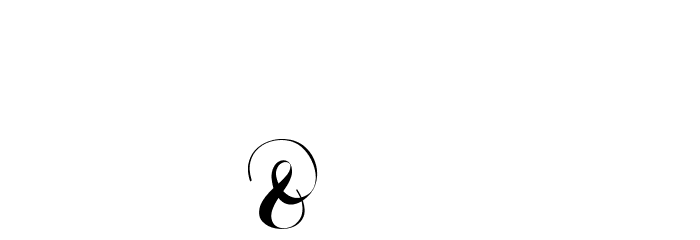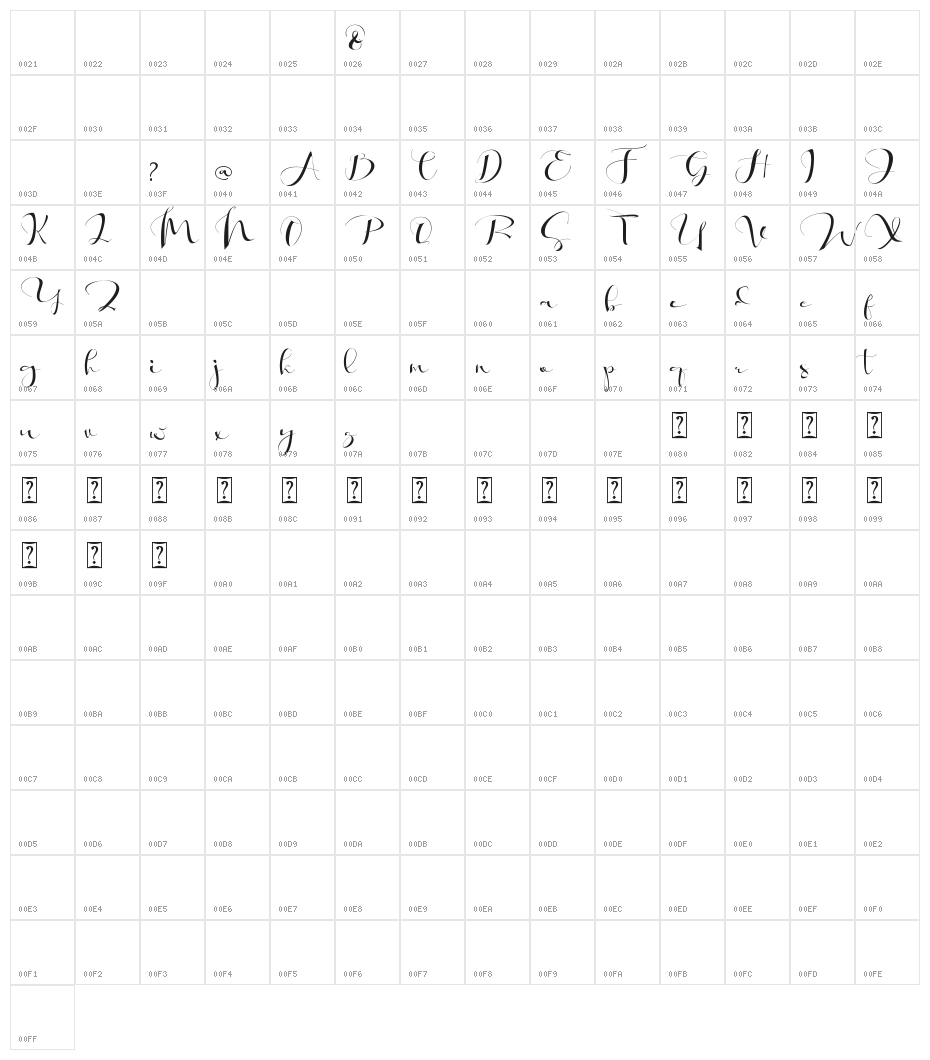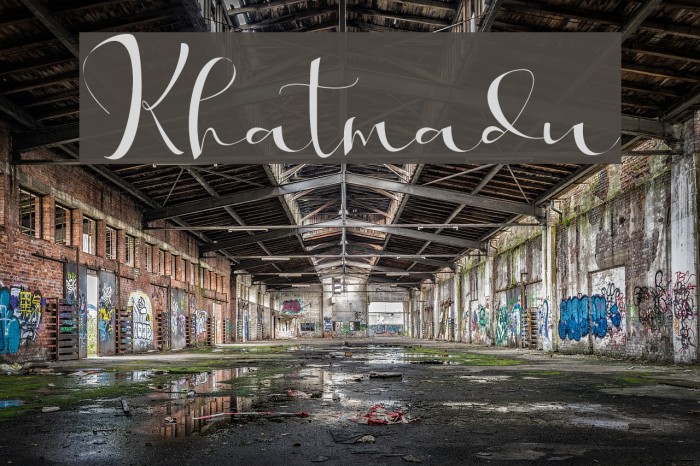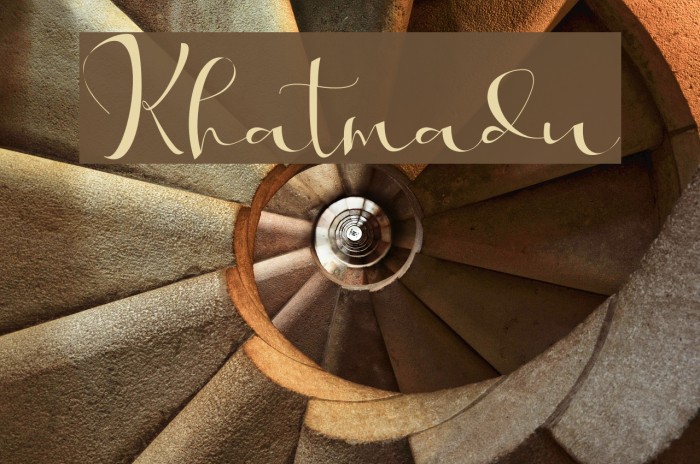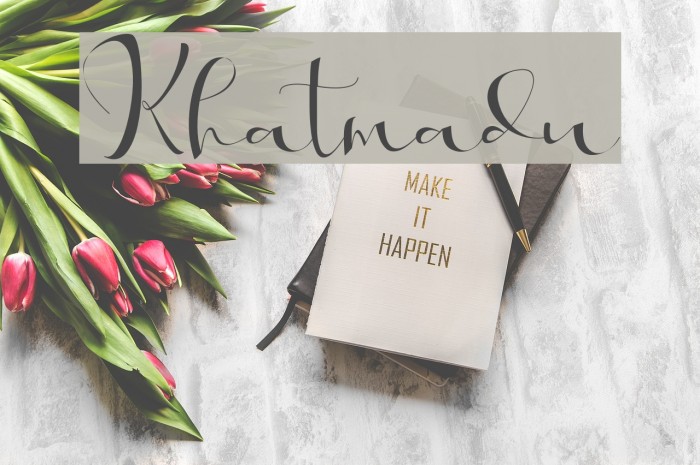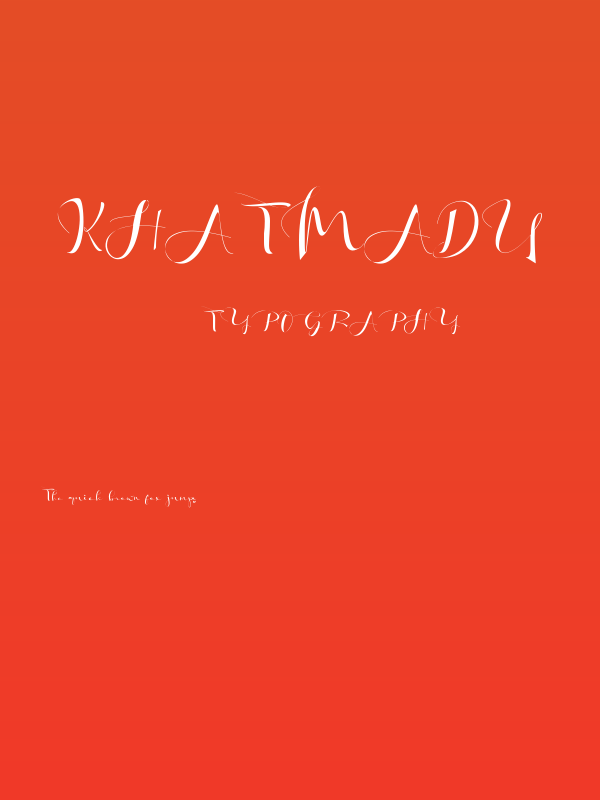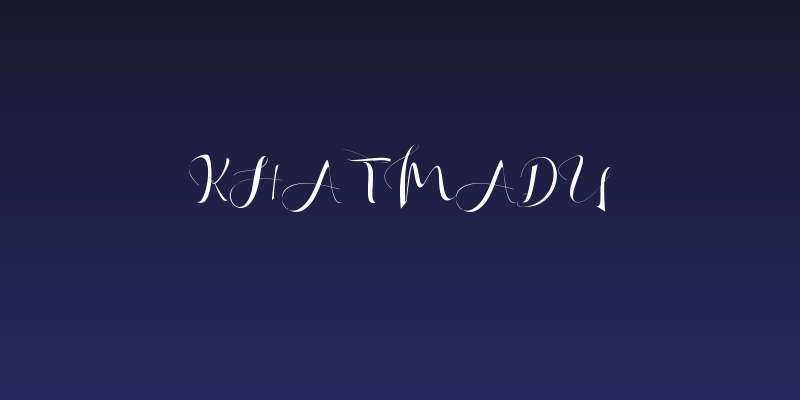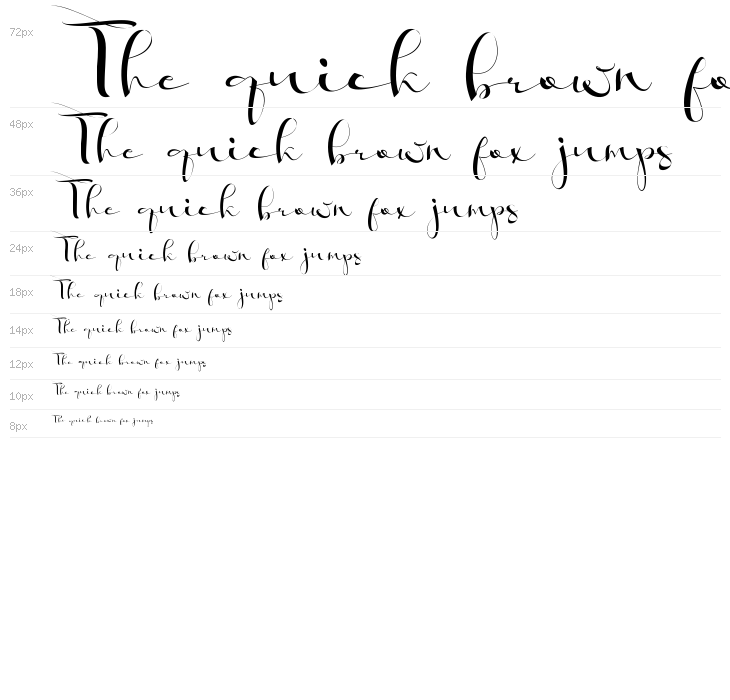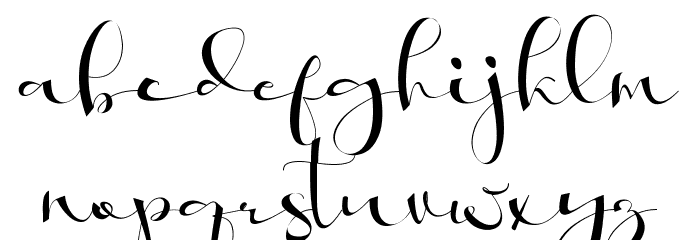
Khatmadu Font
Khatmadu Description
This elegant script font features flowing, interconnected letters with a calligraphic style. The uppercase letters are ornate, with sweeping curves and flourishes that add a touch of sophistication. The lowercase letters maintain a consistent style, with smooth transitions and loops that enhance readability while retaining an artistic flair. The font's design is characterized by its high contrast between thick and thin strokes, giving it a dynamic and lively appearance. The ampersand is particularly decorative, showcasing the font's ability to blend functionality with aesthetic appeal.
Overall StyleElegant
Use CaseLogos, Invitations, Branding
Proposed ProjectsIdeal for wedding invitations, elegant branding, greeting cards, and luxury product packaging.